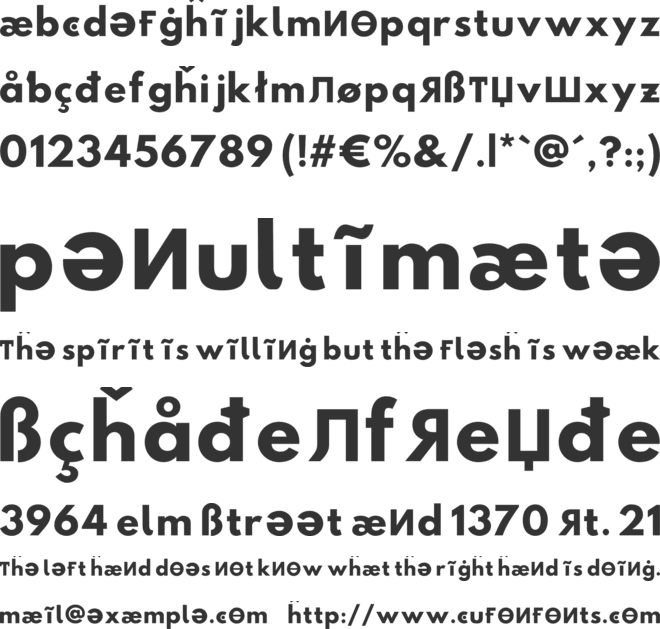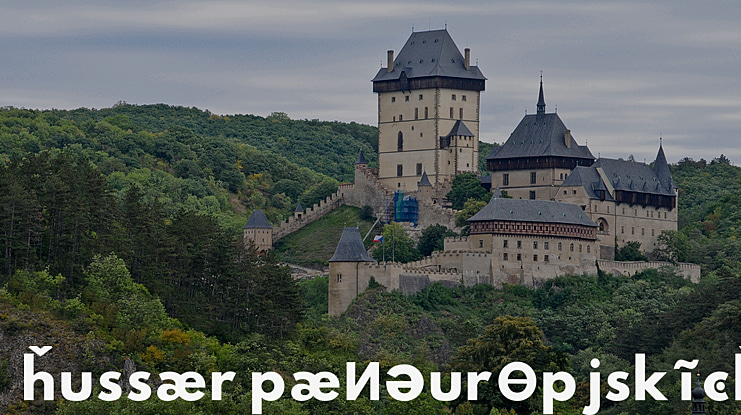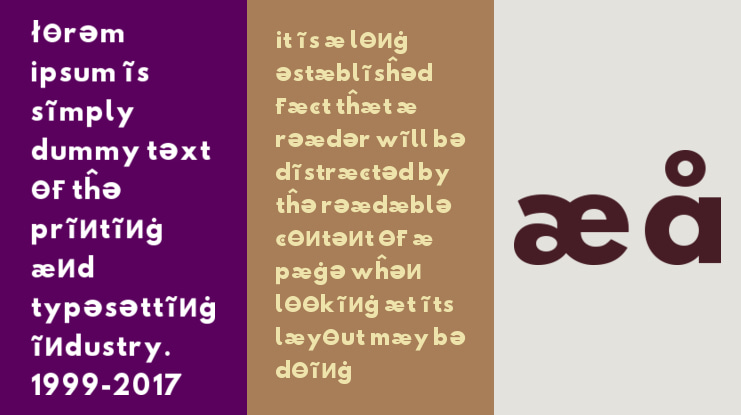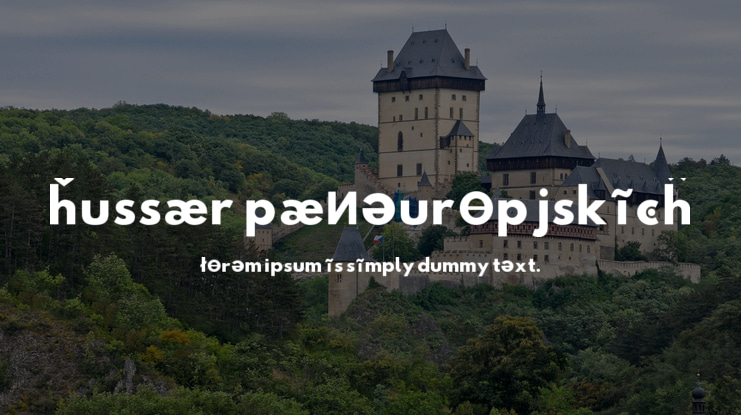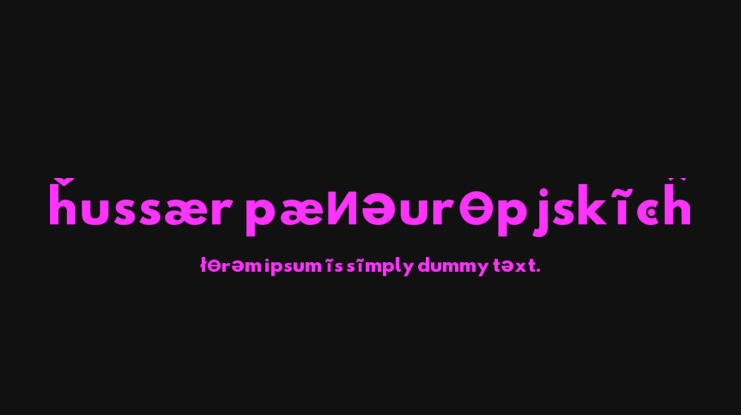
This Font was designed as a way to try to "help save money for people in Europe and elsewhere."
April Fool's day joke font 2015.
Co-designed with Mew Too.